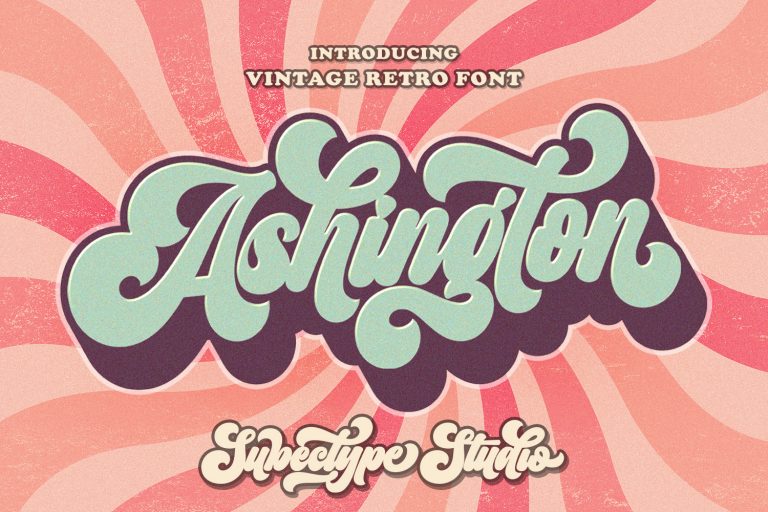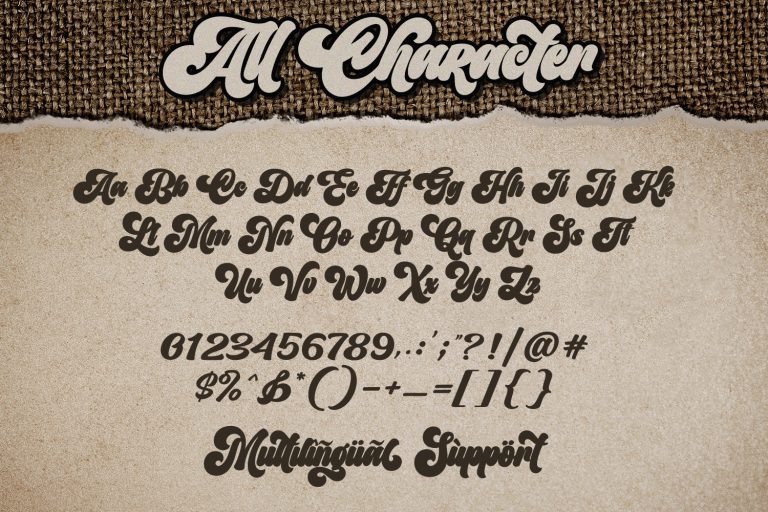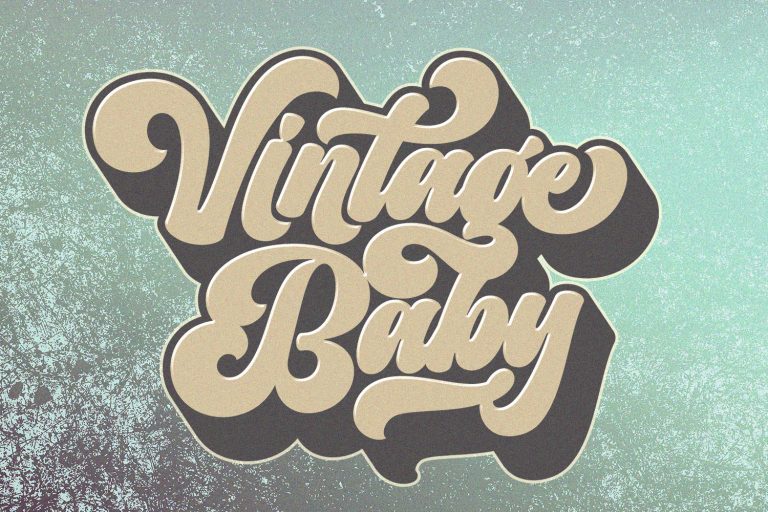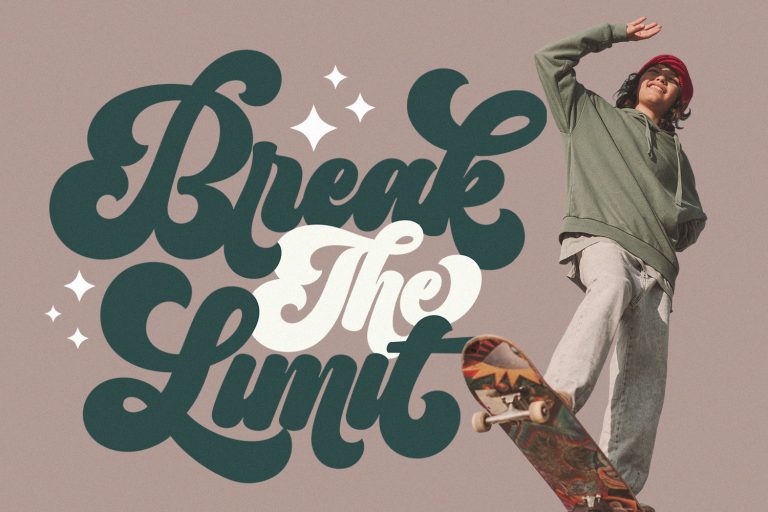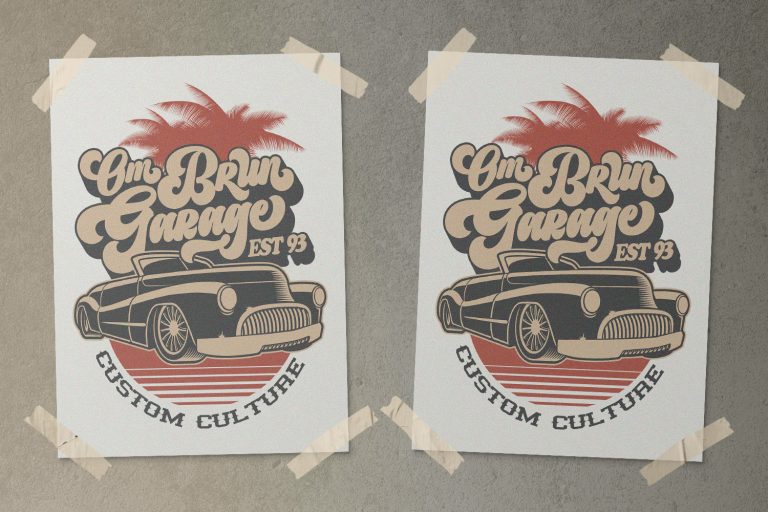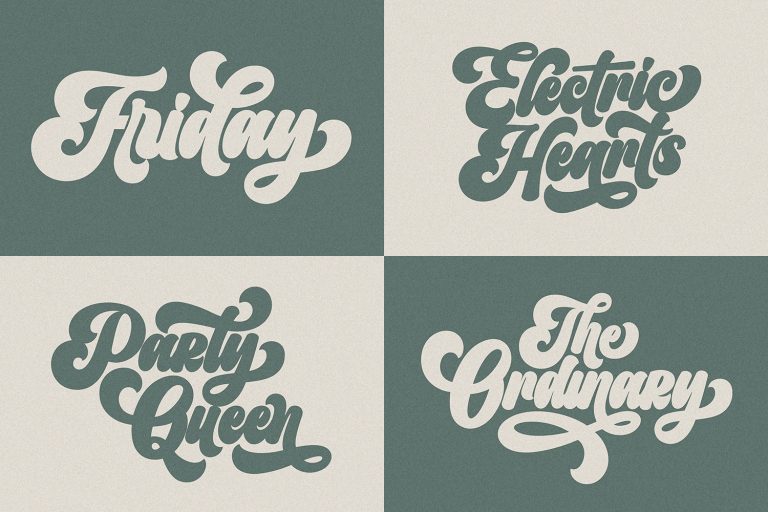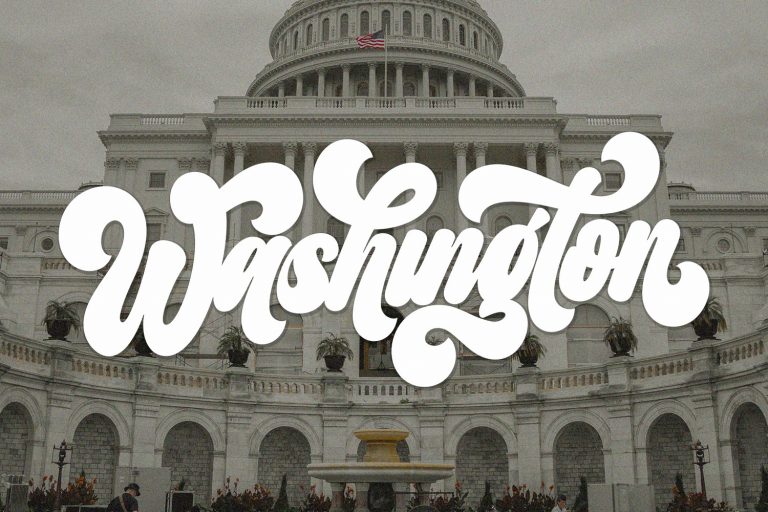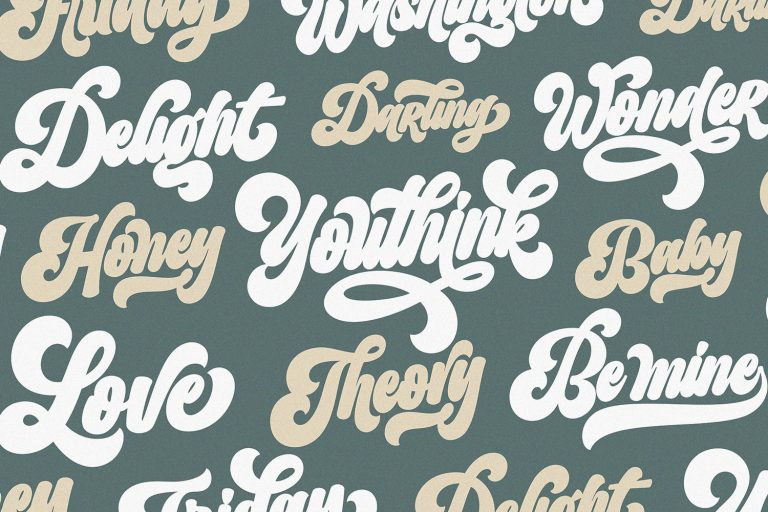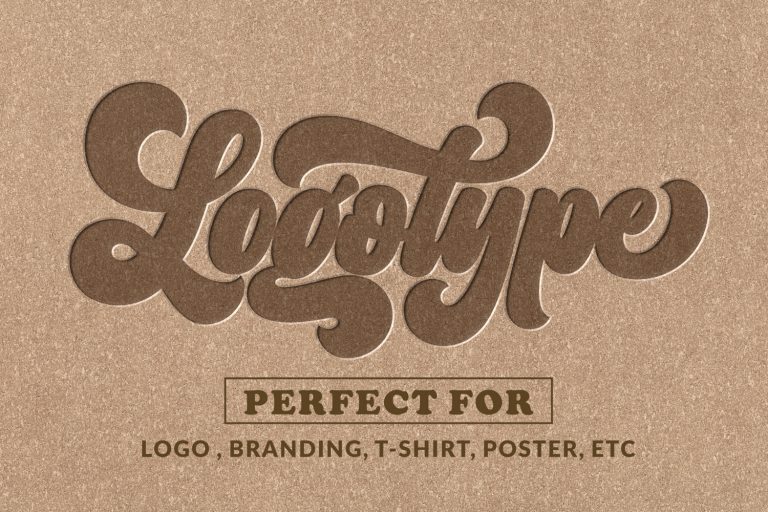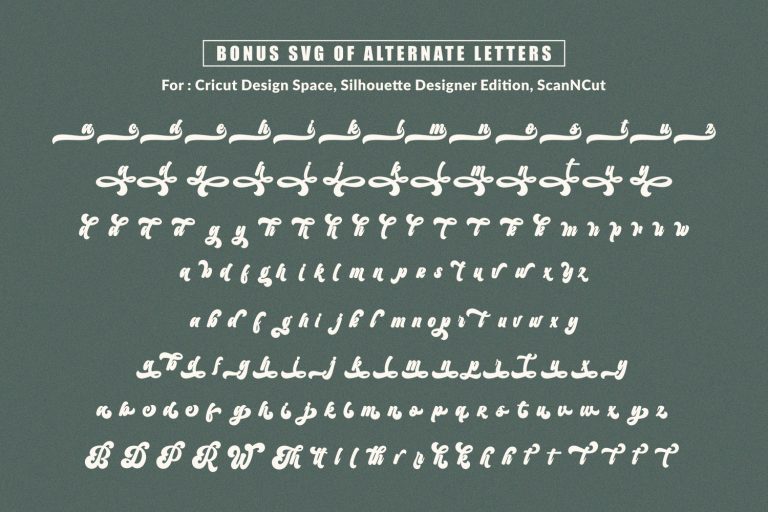
The Ashington is a Vintage retro font. Inspired from retro typography and lettering in the 70’s and 80’s combine with bold typography style.
This font perfect for vintage and retro design, badge, logos,t-shirt, poster, branding, packaging, signage,
book coverand so much more!
This font is not included with “Shadow/ Extrude”, it was created manually for display purposes only
Multilingual Support
Alternate Letters
ligatures